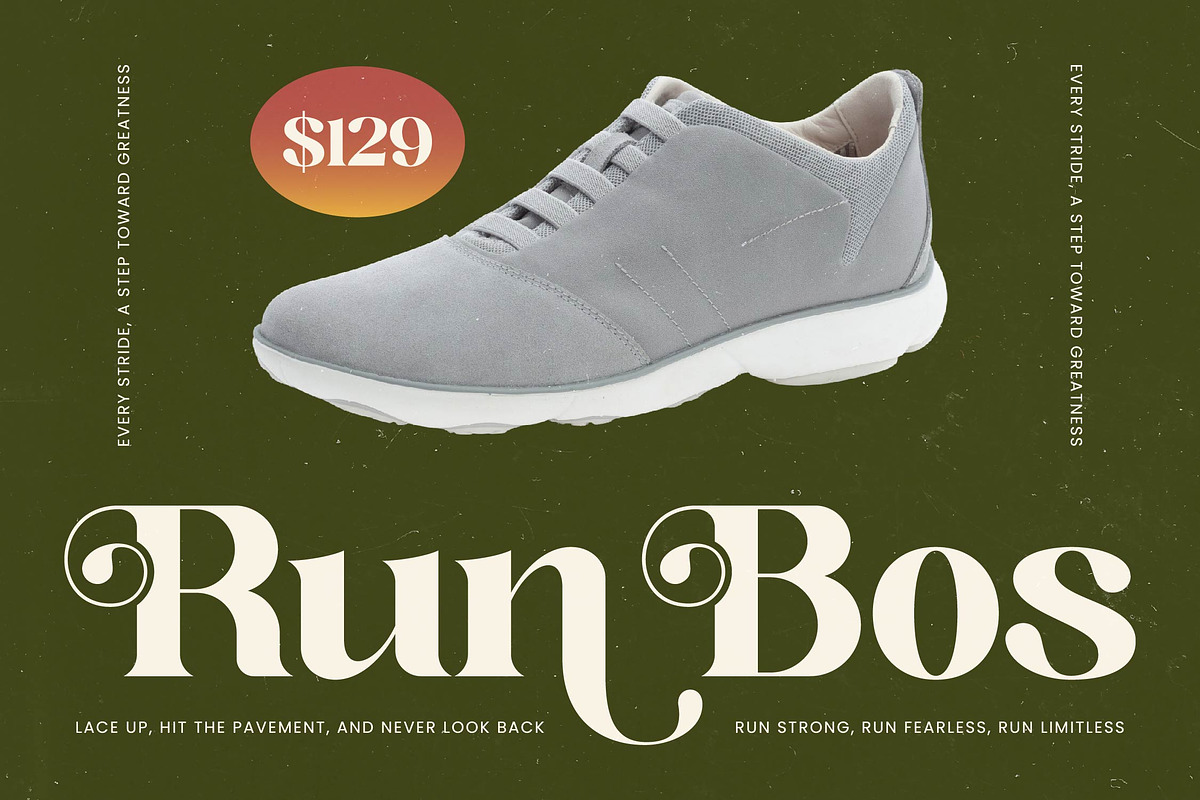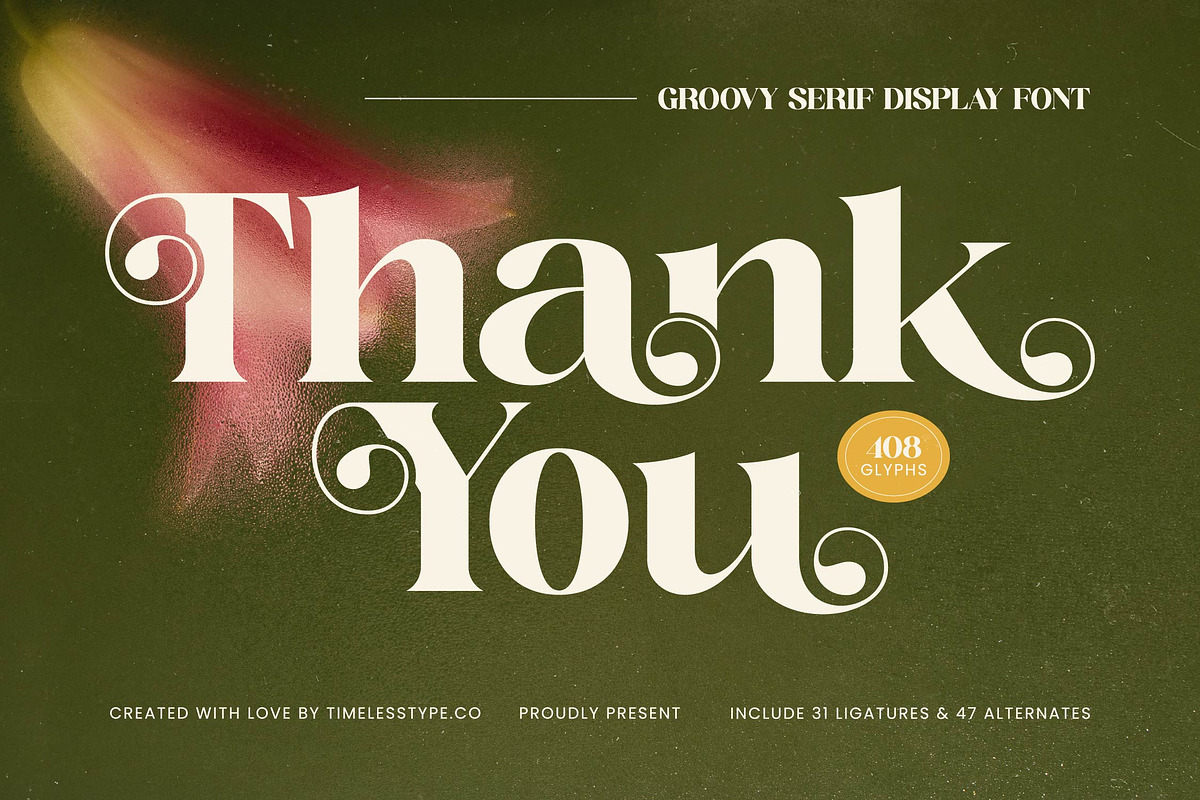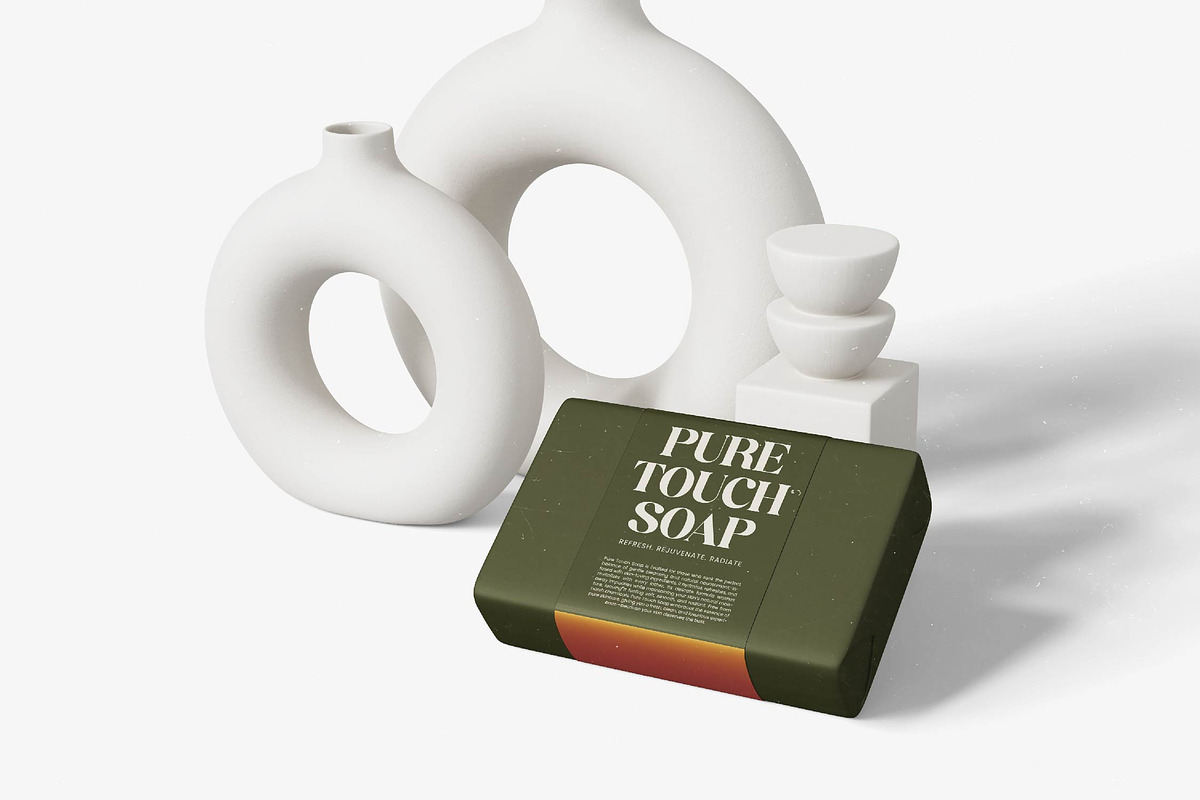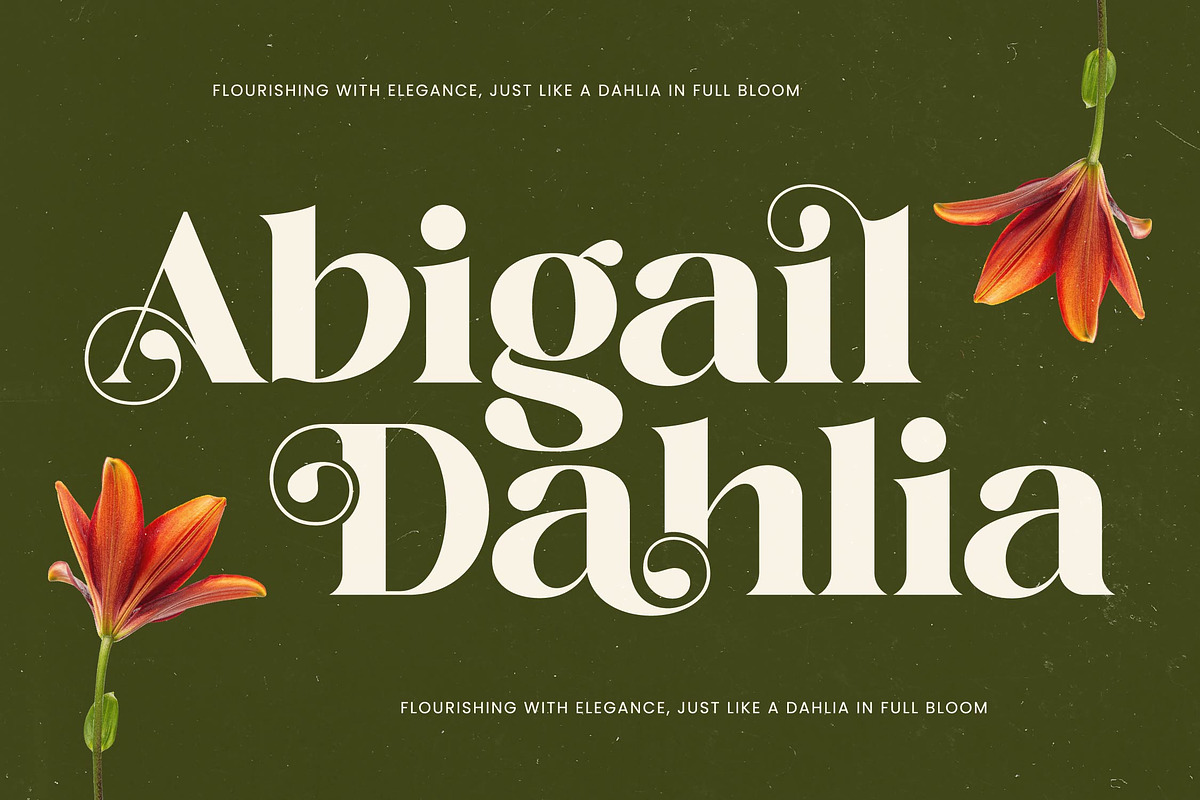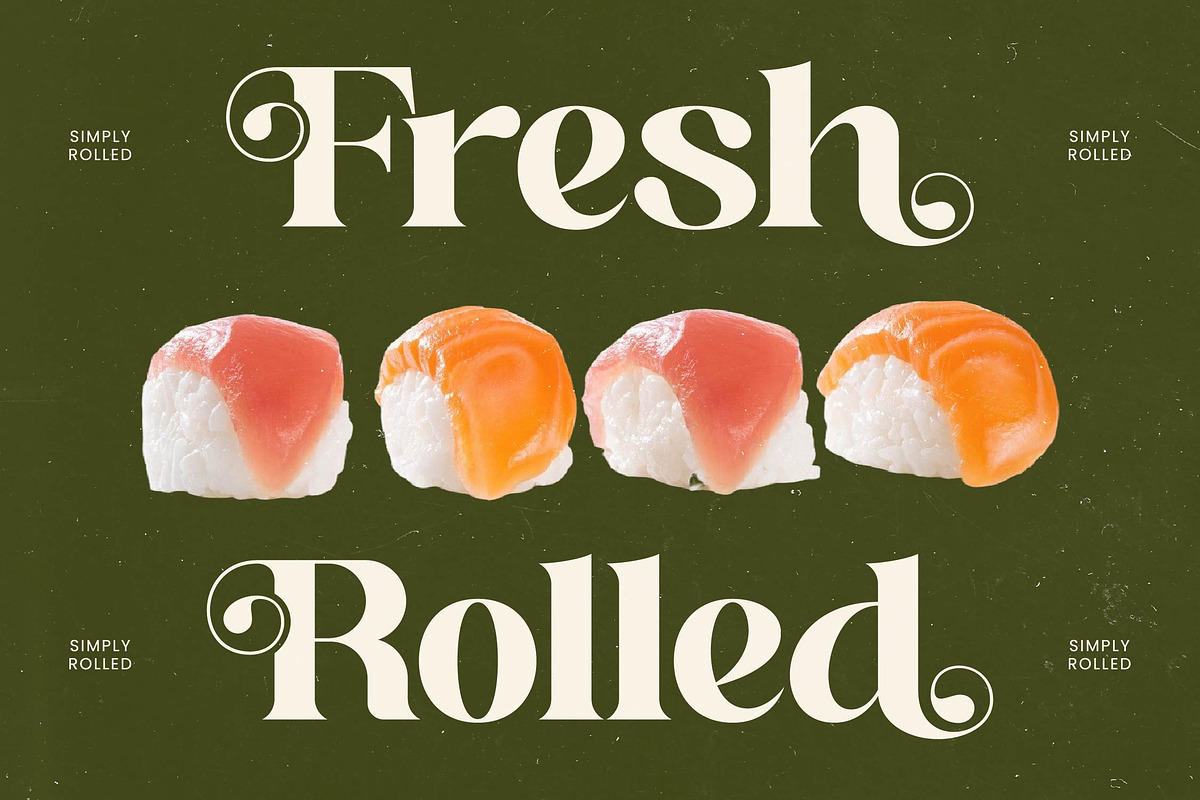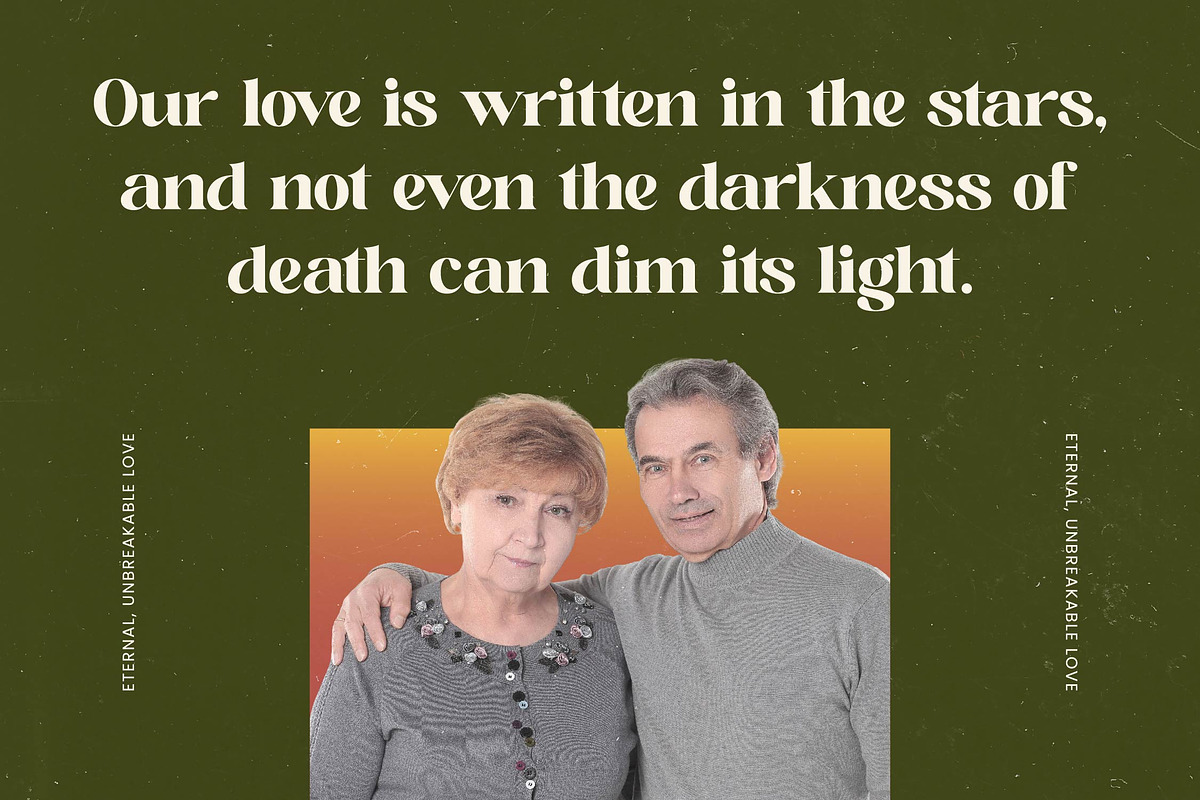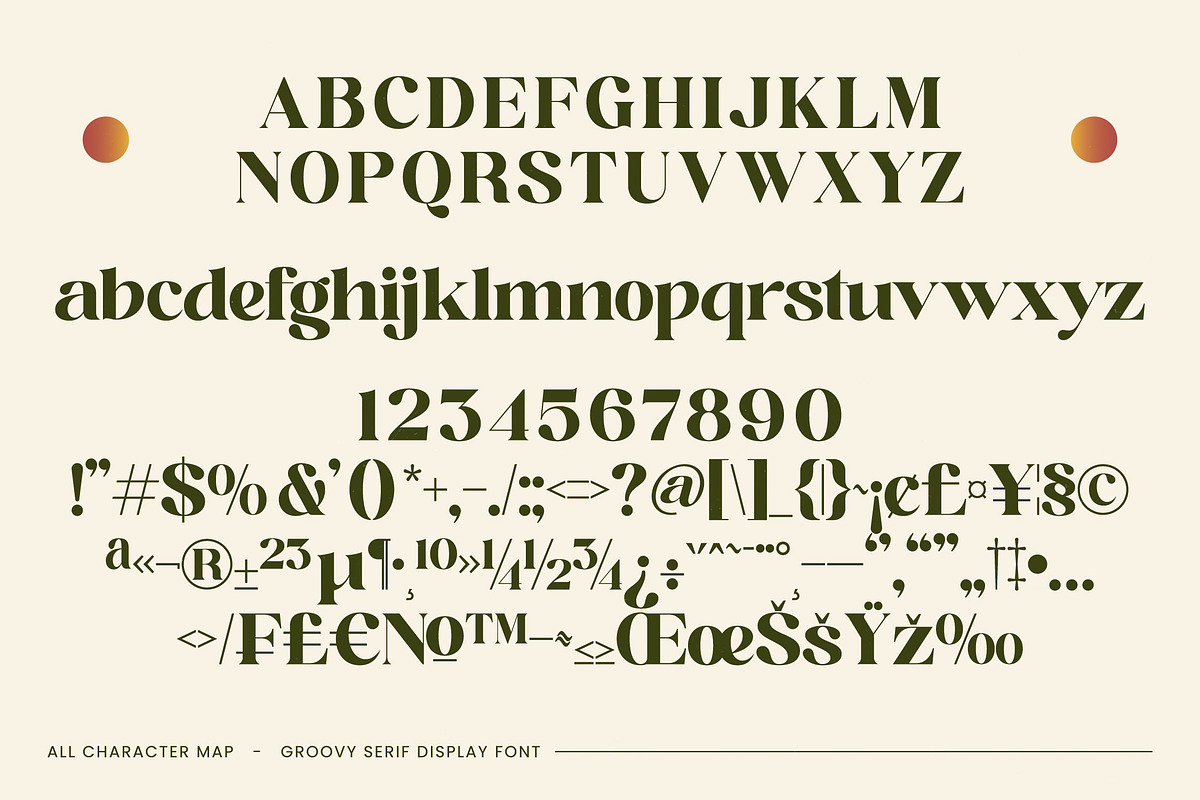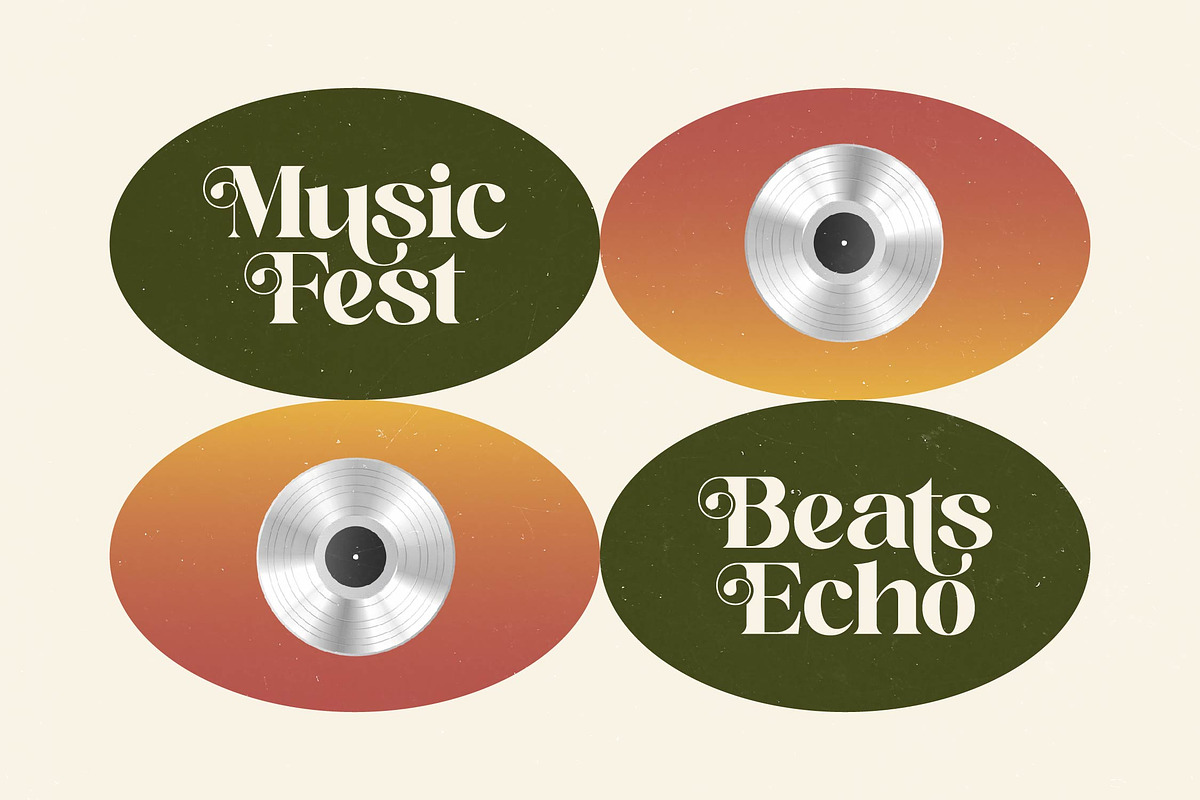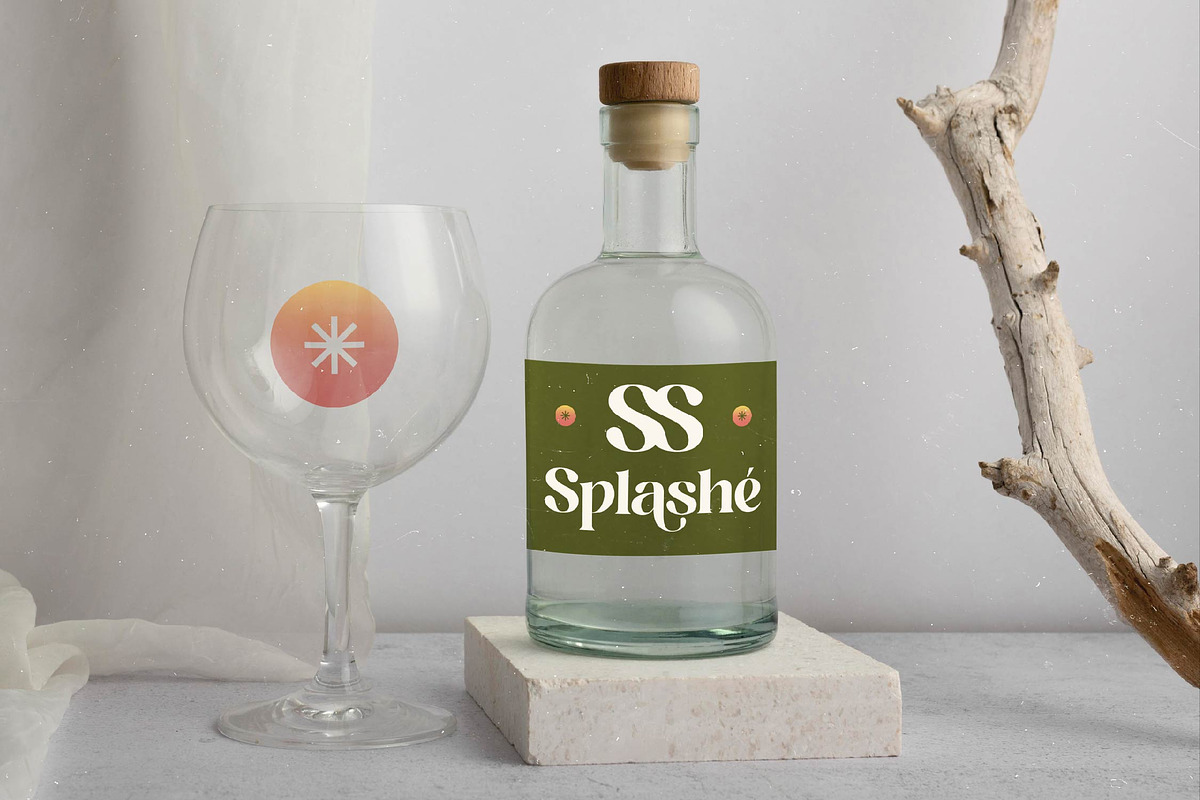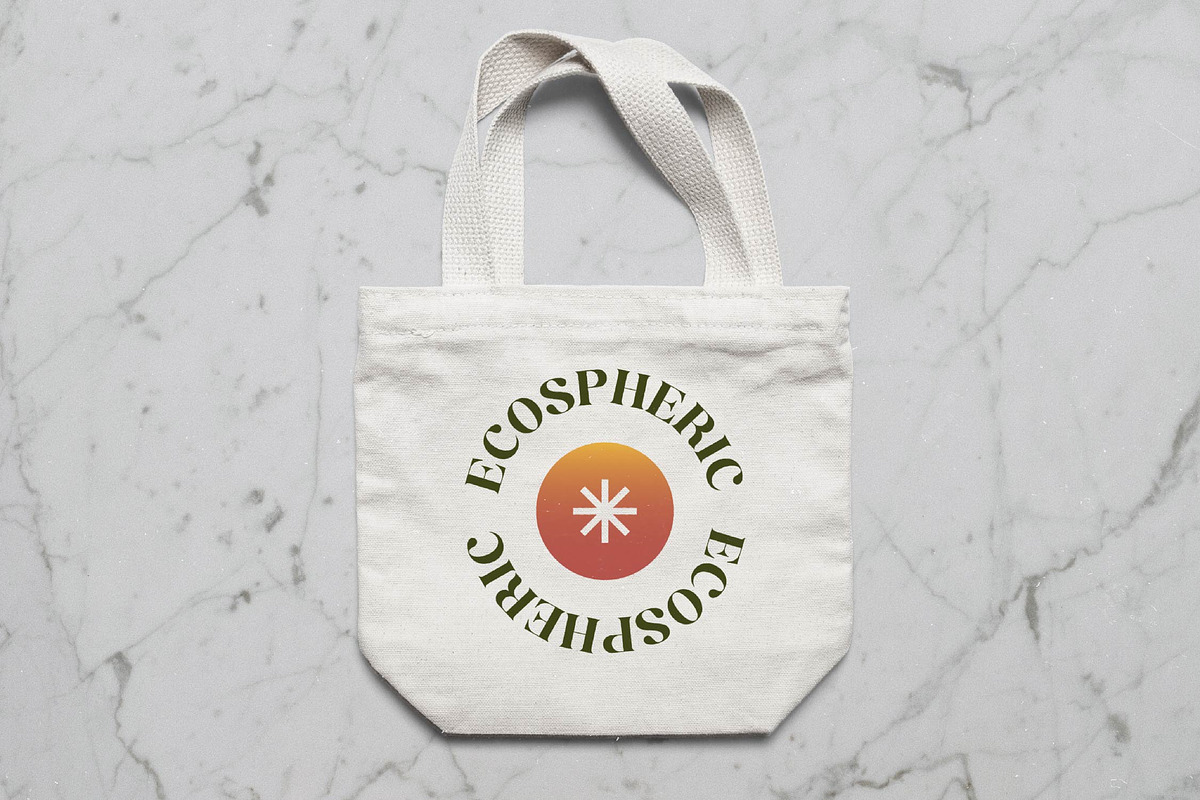
Adeline Mahila Groovy Serif Font
Step into a world of timeless elegance and retro charm with Adeline Mahila, a typeface designed to captivate and inspire. This font blends the soulful curves of the seventies with a sophisticated modern edge, making every character a piece of art.
Drawing inspiration from the golden era of editorial design and organic floral forms, this typeface evokes a sense of nostalgia mixed with contemporary high-fashion. The visual atmosphere is one of lush greenery, velvet textures, and the effortless cool of a vintage record sleeve.
The personality of this typeface is defined by its modern serif display qualities and striking luxury typography details. With its high-contrast serif strokes and fluid movement, it serves as a powerful editorial font that guarantees an unforgettable branding impact for any creative project.
Aligning perfectly with the current modern serif trend, this typeface meets the demand for editorial display fonts that feel both heritage-rich and fresh. Its character-driven typography allows designers to break away from sterile minimalism and embrace a more expressive, decorative aesthetic.
This versatile font is an ideal choice for high-end logo design, boutique branding, and sophisticated editorial layouts. It also shines in luxury packaging, romantic wedding stationery, and fast-paced fashion marketing where visual distinction is paramount.
To ensure maximum creative freedom, the set includes a generous collection of ligatures and alternates that allow for custom-tailored lettering. Complete with decorative swashes and full multilingual support including international characters, this font is a comprehensive tool for global design.
- Ligature 31 Alternate 47